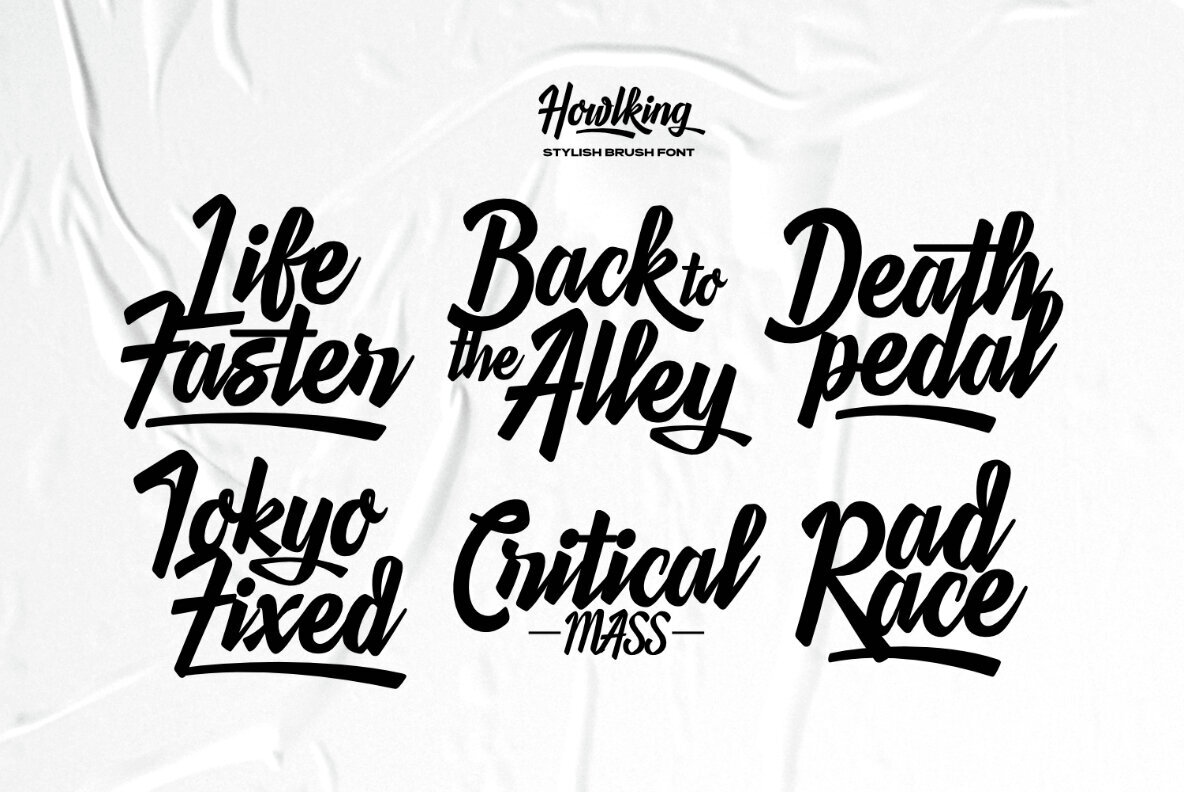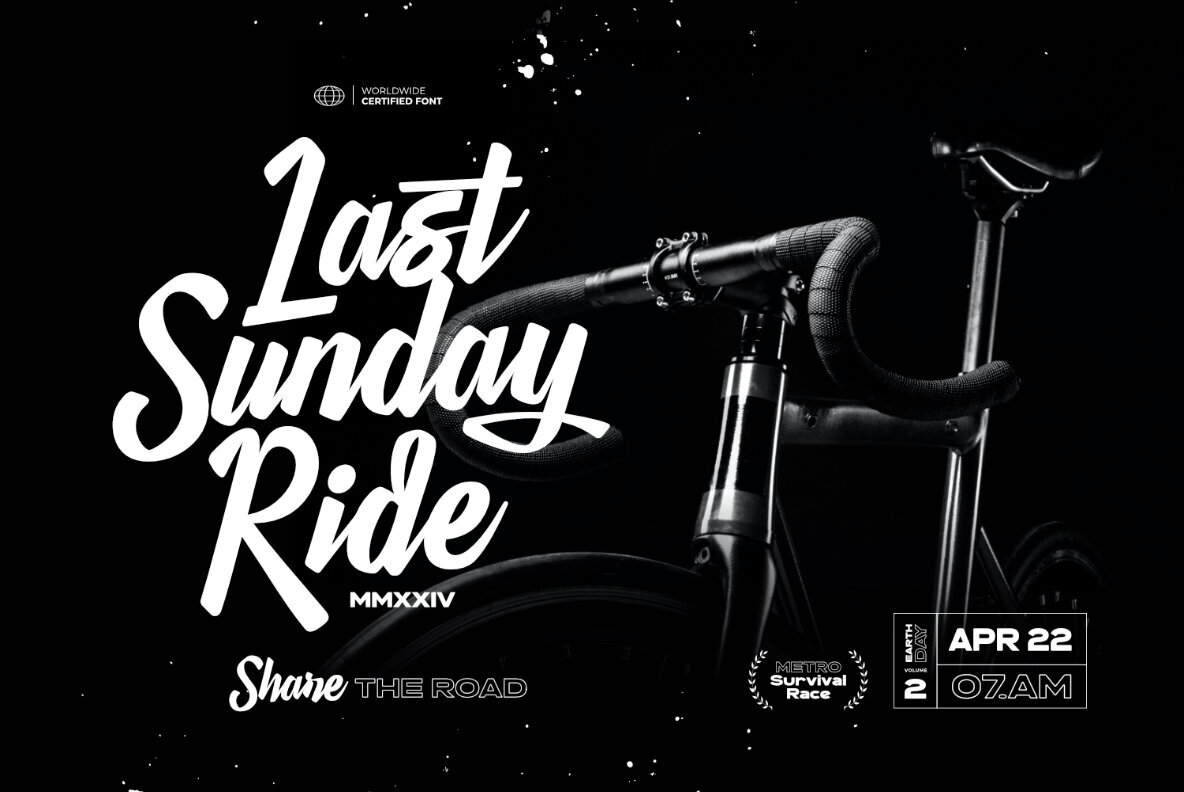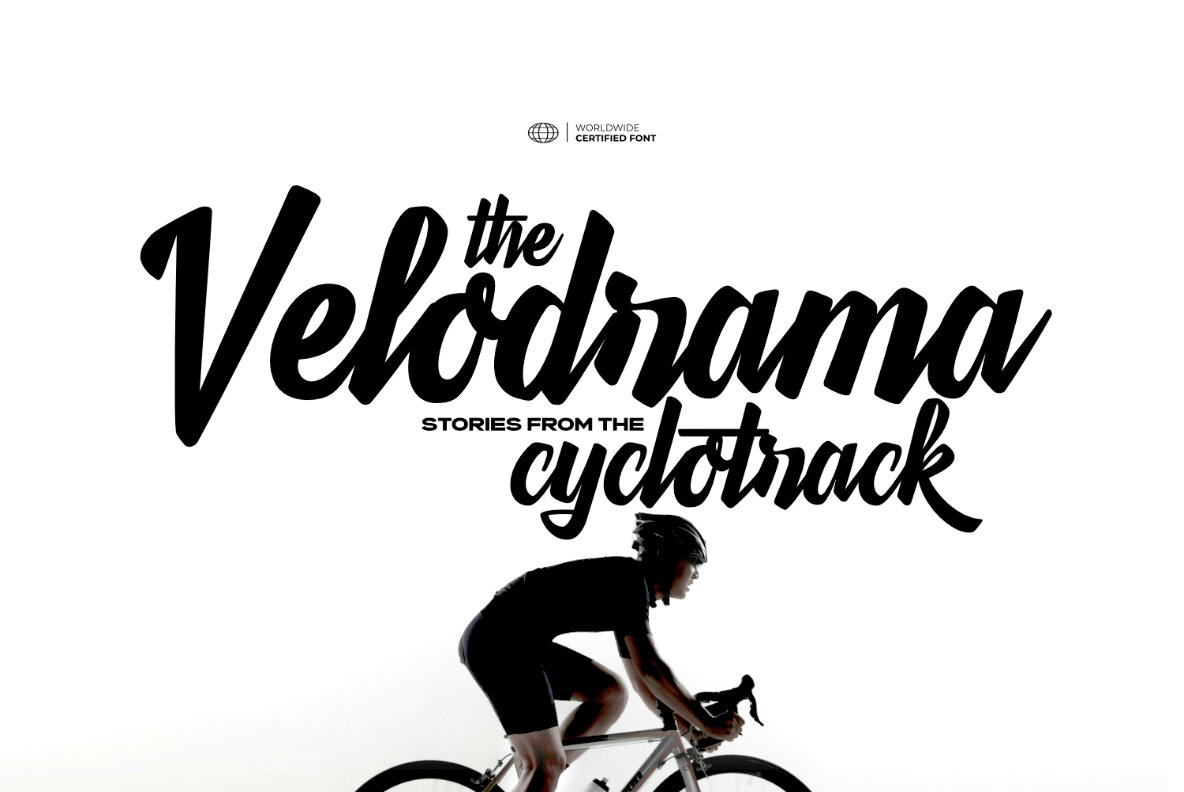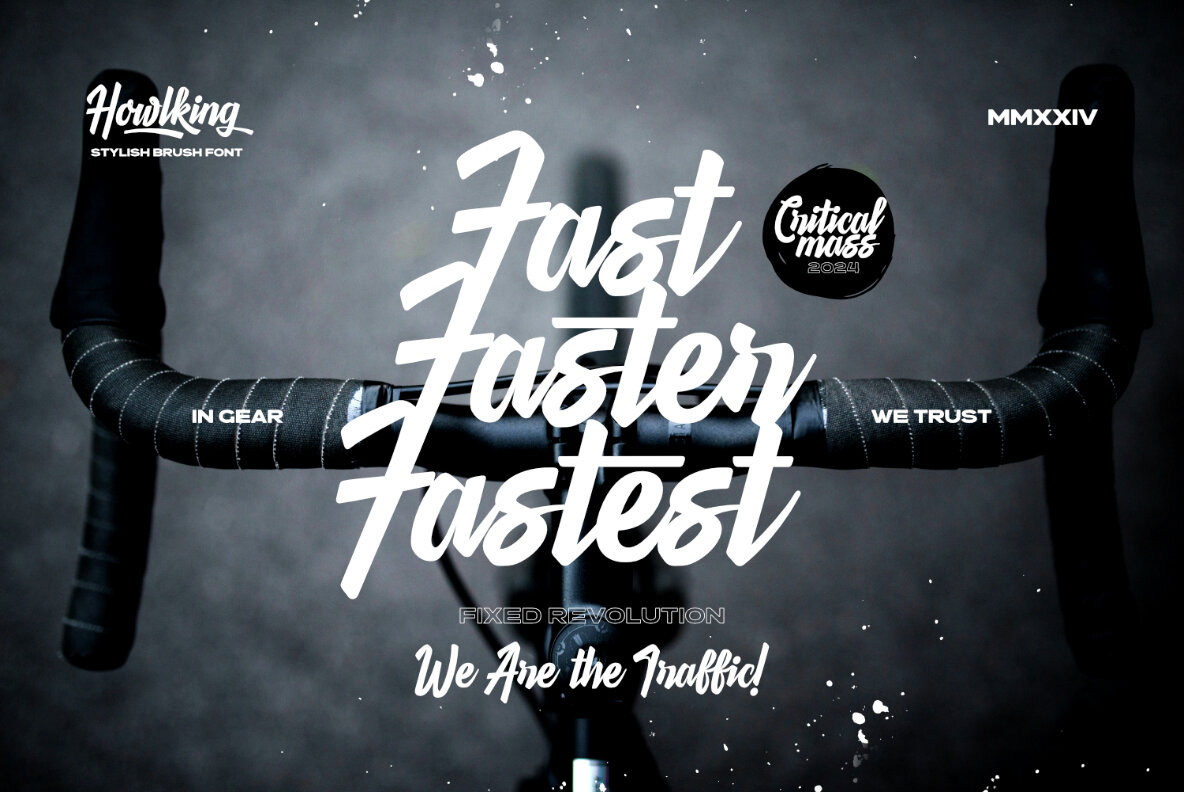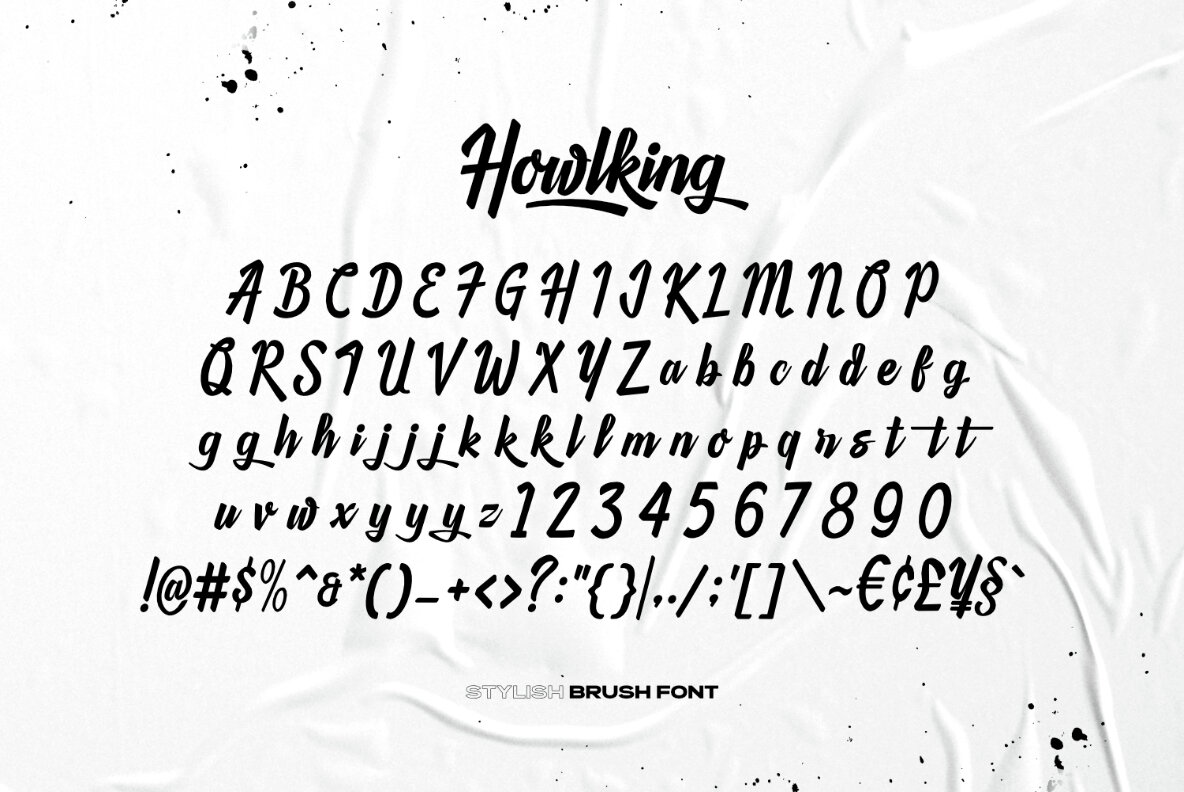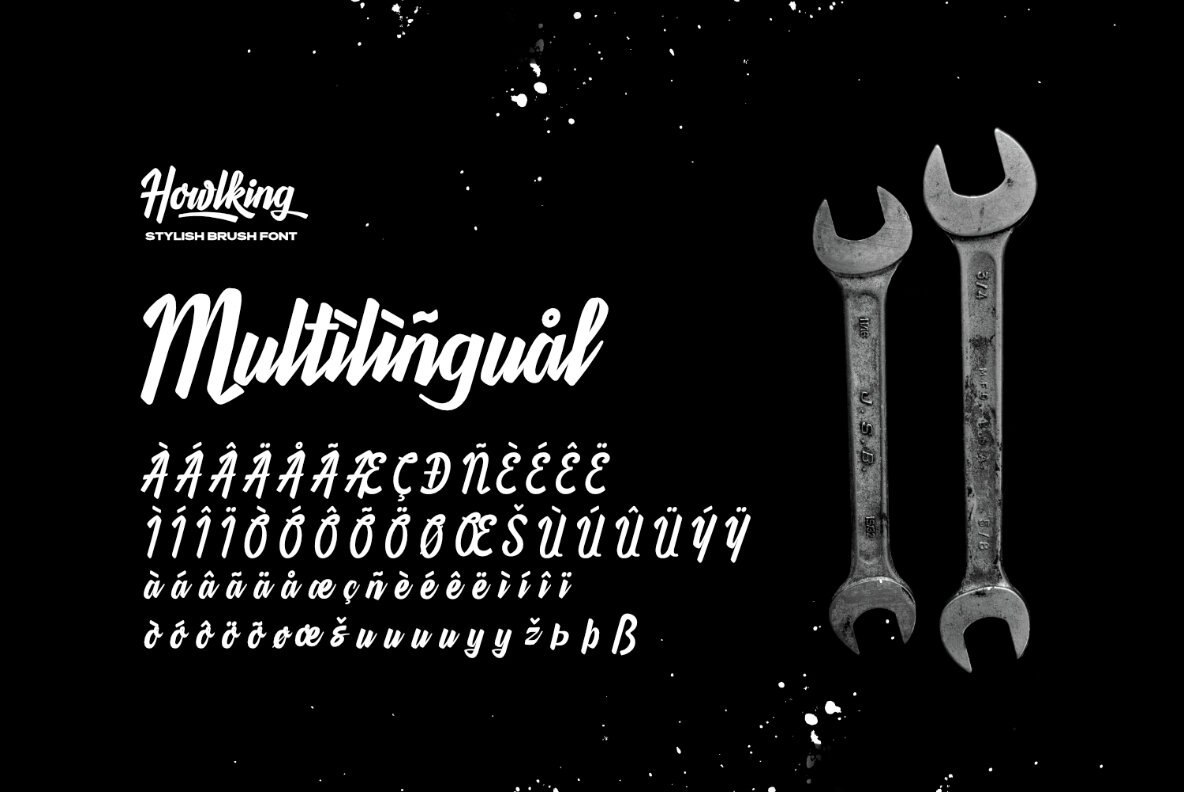
Howlking Font
Howlking Regular
Proudly present Howlking - Stylish Brush Script, created by ikiiko. Howlking is a compelling and fashionable brush script typeface that seamlessly combines current flare with a youthful personality. This sleek typeface is ideal for individuals looking to give their projects a contemporary and vibrant vibe. The brush script's fluid strokes convey a sense of dynamic movement and originality, making it an excellent choice for fashion businesses and stylish streetwear designs. Howlking's unique and eye-catching style gives a distinct appeal to any creative activity. The font's bold and expressive characters convey personality and confidence, making it ideal for projects aimed at a fashion-forward audience. This font is very suitable for making a streetwear brand, poster, magazine layout, fashion design, quotes, or simply as a stylish text overlay to any background image.